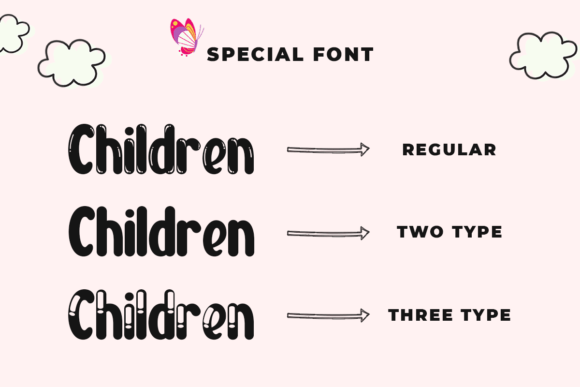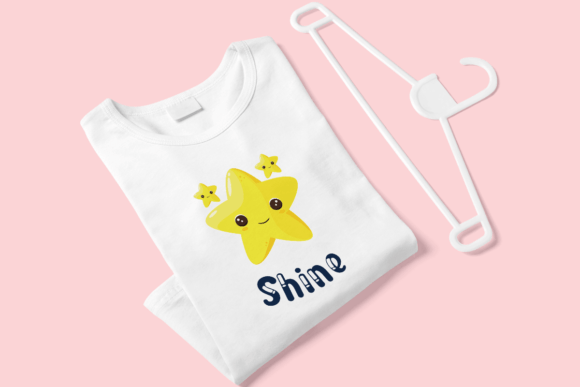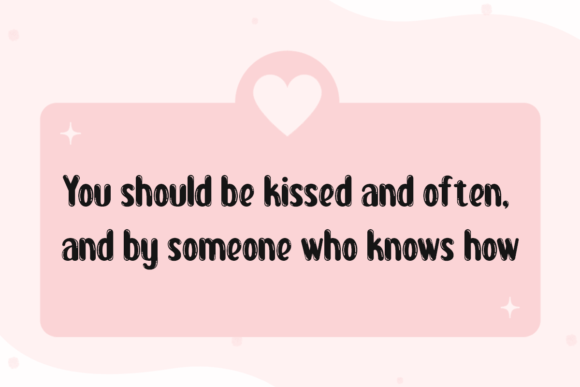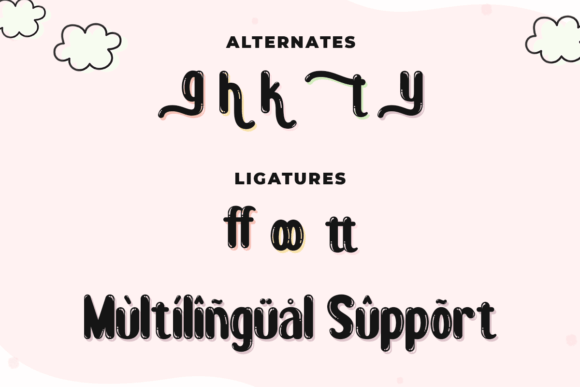
The Boogie Worth Font: A Playful and Friendly Companion for Your Design Projects
I’ll never forget the time I was working on a project for a children’s party invitation. I had the design concept all sorted out, but I was struggling to find the perfect font to bring it all together. That’s when I stumbled upon the Boogie Worth font. It was love at first sight! This cute, friendly, and simple handwritten font instantly captured the playful and bubbly vibe I was going for. In this article, I’ll share my experience with Boogie Worth, its features, and how to make the most of it in your design projects.
An Honest Review of Boogie Worth
- ✨ The playful and bubbly personality of Boogie Worth makes it perfect for a variety of design ideas and school projects.
- ✅ The font is PUA encoded, which means you can access all the amazing glyphs and ligatures with ease.
- 💕 The simple and handwritten style of Boogie Worth makes it easy to read and understand, even for younger audiences.
While Boogie Worth is an amazing font, there are a few things to keep in mind:
- ⚠️ As a handwritten font, Boogie Worth may not be the best choice for very formal or professional projects.
- 🤔 Some users may find the font a bit too playful or childish for certain design concepts.
The Backstory of Boogie Worth
Boogie Worth was designed by a talented typographer who wanted to create a font that would bring a smile to people’s faces. The designer drew inspiration from their own childhood and the playful, bubbly world of children’s books. The result is a font that’s both fun and functional, perfect for a wide range of design projects.
Q: Is Boogie Worth suitable for body text?
A: While Boogie Worth is a beautiful font, it’s best suited for headlines, titles, and short paragraphs. For body text, you may want to choose a font that’s easier to read and more suitable for long-form content.